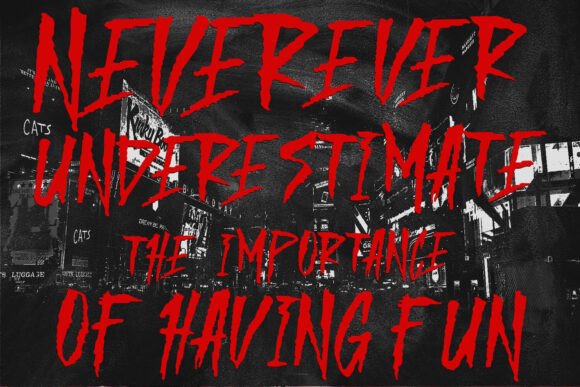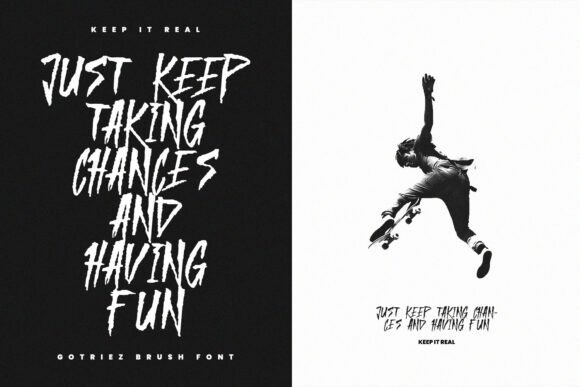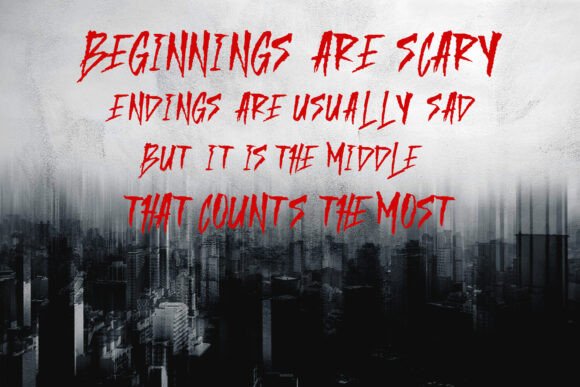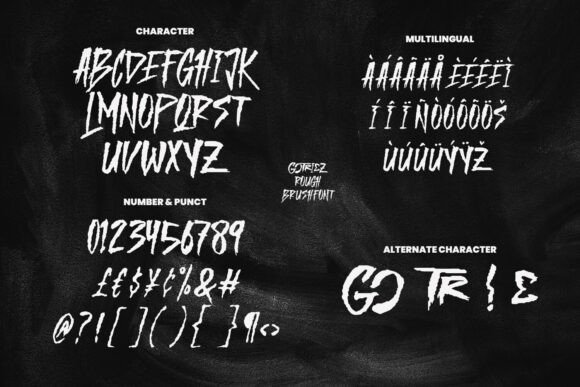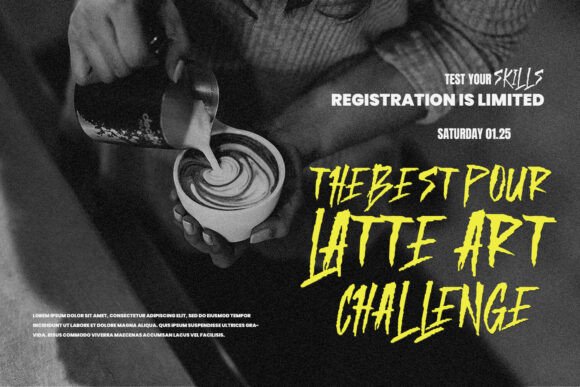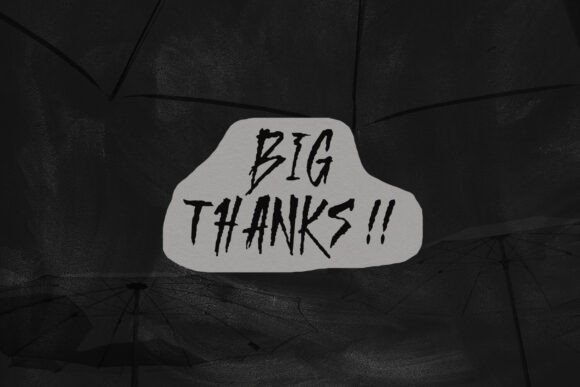
The Quest for the Perfect Handcrafted Font: Discovering Gotriez
I’ll never forget the time I was working on a branding project for a local artisan bakery. I was determined to capture the warm, cozy essence of their freshly baked goods and welcoming atmosphere. As I scrolled through font after font, I just couldn’t find the right fit. That was until I stumbled upon Gotriez Handmade Brush Rough Font. It was like a breath of fresh air – the perfect blend of rustic charm and elegance. In this article, I’ll share my love for Gotriez, its features, and how to make the most of it in your designs.
An Honest Review of Gotriez
What I Love About Gotriez ✨
- ✅ The authentic handcrafted brush feel that adds a personal touch to any design
- ✅ A wide range of OpenType features, glyphs, and stylistic alternates to experiment with
- ✅ Perfect for a variety of design applications, from signature and stationery to logo typography and packaging design
- ✅ The rough, textured quality that gives designs a unique, handmade look
While Gotriez is an amazing font, there are a few things to keep in mind:
- 🤔 Some users may find the font a bit too distressed or rough for certain applications
- ⚠️ It may not be the best choice for very small text sizes or low-resolution designs
The Story Behind Gotriez
Gotriez was designed with the intention of capturing the essence of handcrafted, small-batch products. The font’s creator drew inspiration from traditional brush lettering and the imperfections that come with handmade craftsmanship. The result is a font that feels authentic, personal, and unique.
Q: What makes Gotriez so special?
A: Gotriez offers a unique blend of handcrafted charm and elegance, making it perfect for a wide range of design applications.